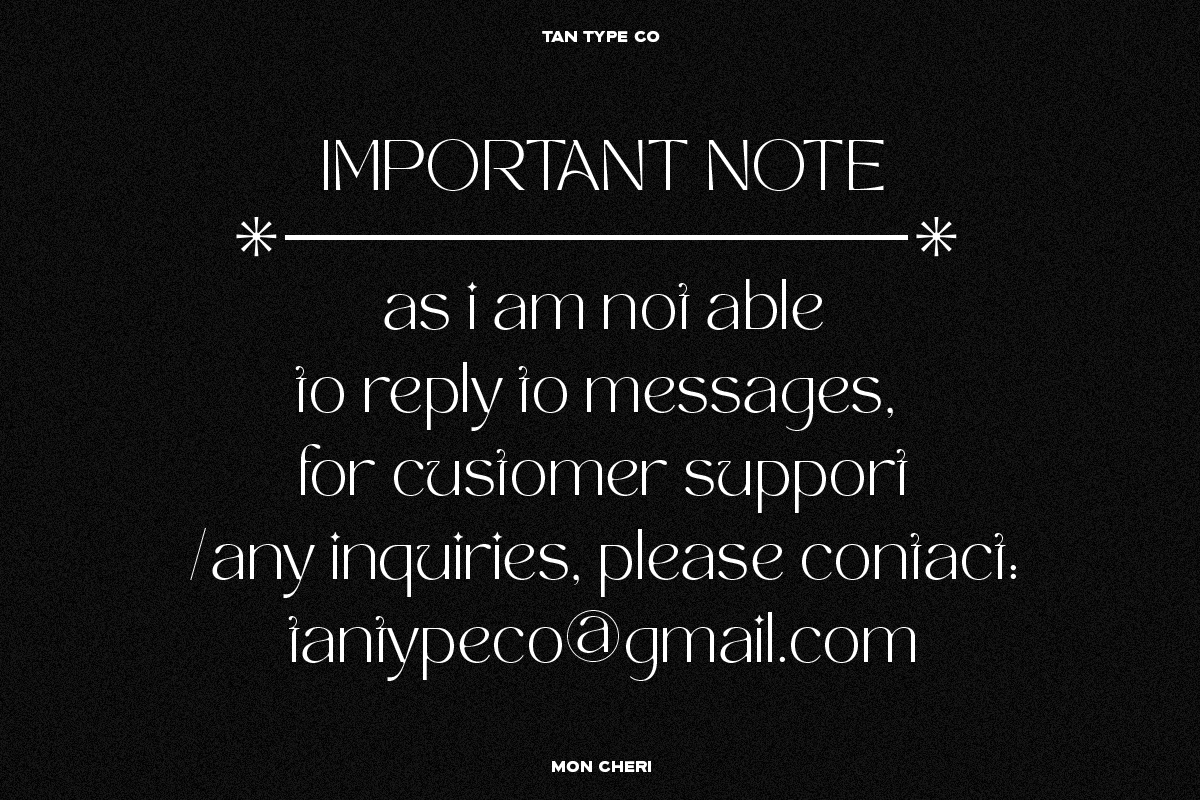
TAN – MON CHERI is an elegant sans serif font. Simple letter shapes with playful ligatures, keeping its legibility high. To be able to access the alternate letters, please make sure the software you are using can support Opentype features.